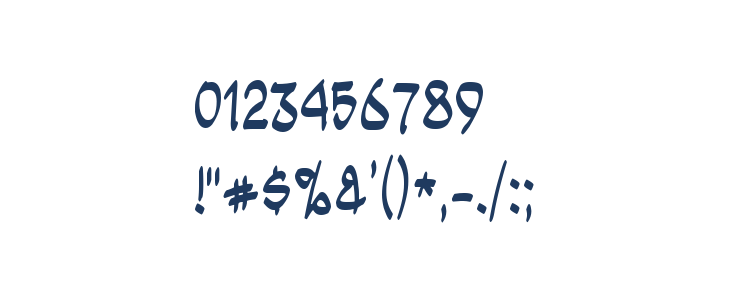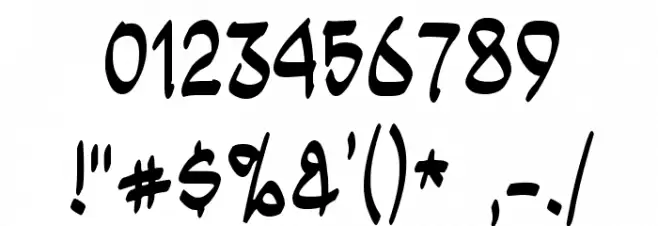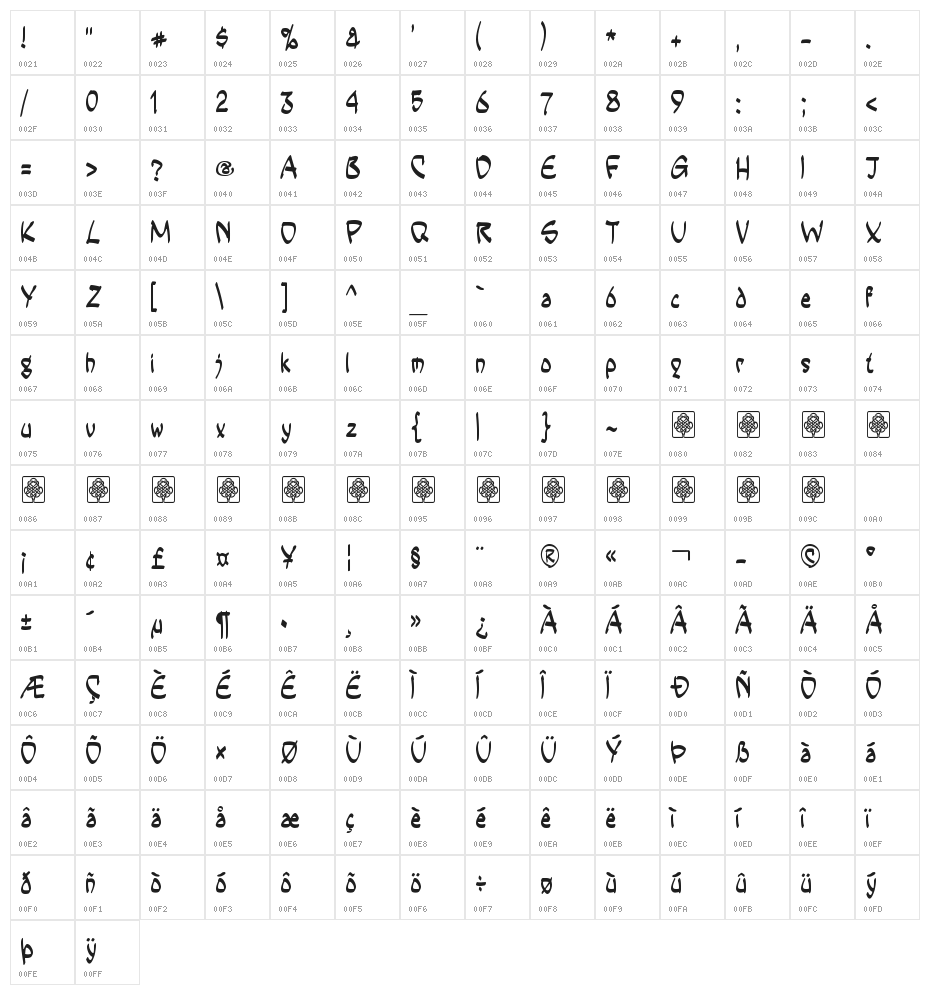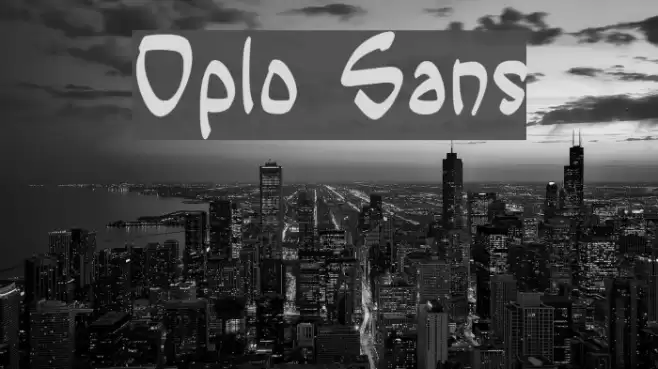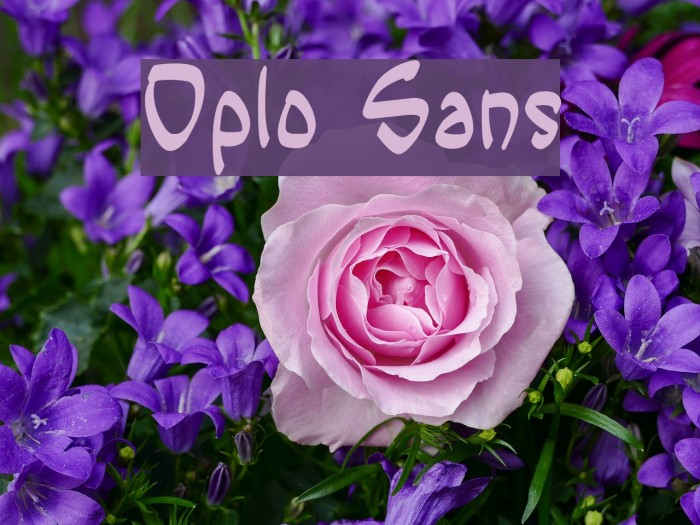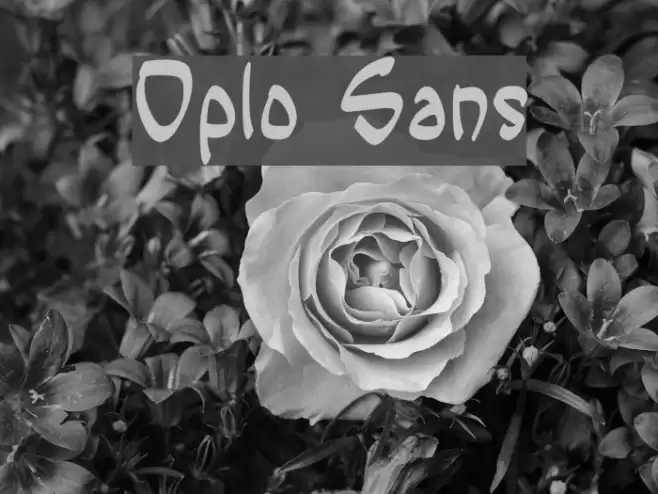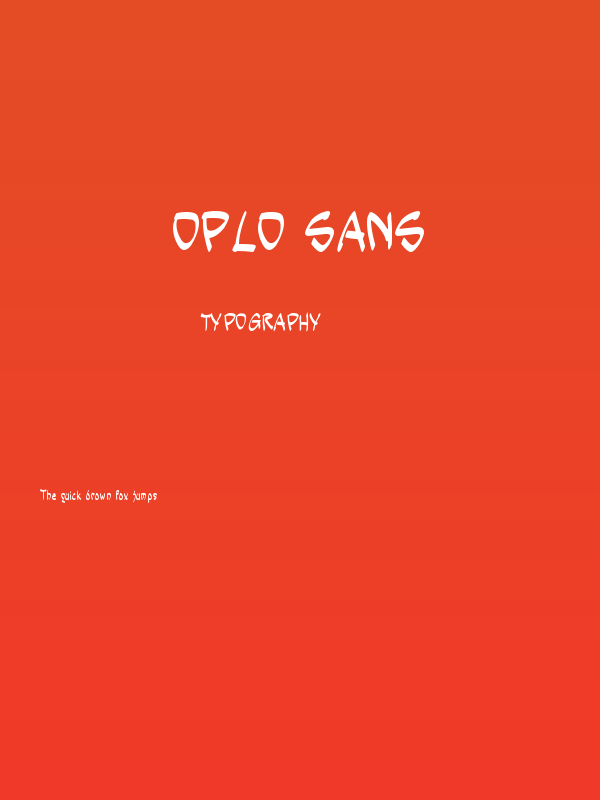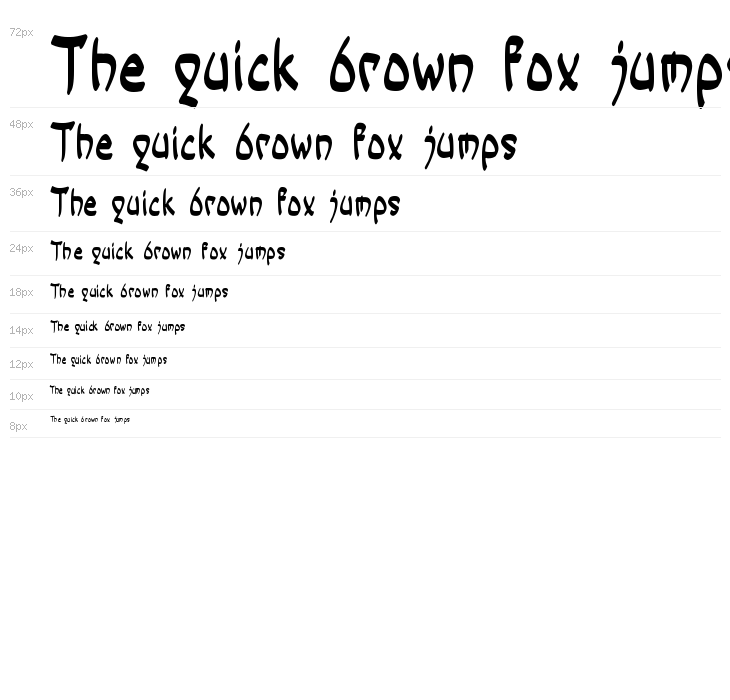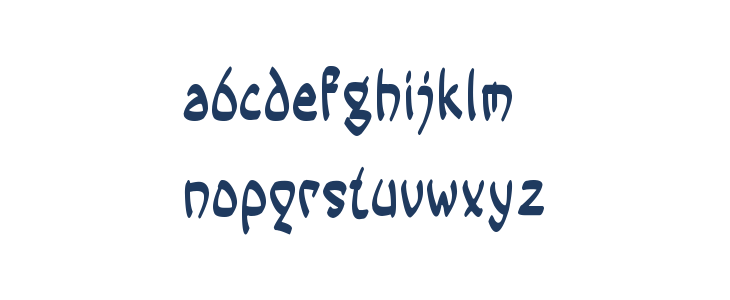
Oplo Sans Font
Oplo Sans Description
This font features a playful and dynamic style with a hand-drawn appearance. The characters are slightly irregular, giving it a casual and informal feel. The strokes are bold and have a consistent thickness, contributing to its legibility. The uppercase and lowercase letters maintain a cohesive look, while the numerals and special characters complement the overall design. The font's unique style makes it suitable for creative and artistic projects, where a touch of personality is desired.
| Proposed Projects | Ideal for children's books, comic strips, posters, and creative branding. |